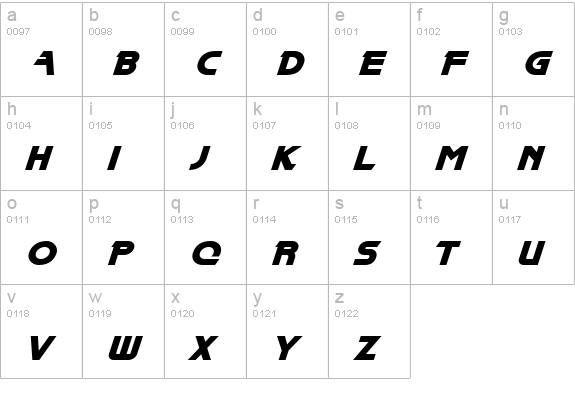
BladeOblique Font Details
BladeOblique font is a sleek and modern typeface that exudes a sense of edgy sophistication. With its sharp angles and stylish slant, this font is perfect for creating striking designs that demand attention. The unique oblique style adds a dynamic twist to any text, making it stand out from the crowd. What's even better is that BladeOblique font is available for free download at FontsMarket.com. This means you can easily access this eye-catching font and incorporate it into your projects without any cost. Whether you're designing a logo, poster, or website, BladeOblique font will add a touch of contemporary flair to your work. Don't miss out on this fantastic opportunity to enhance your designs with this exceptional font - download BladeOblique now and let your creativity shine!